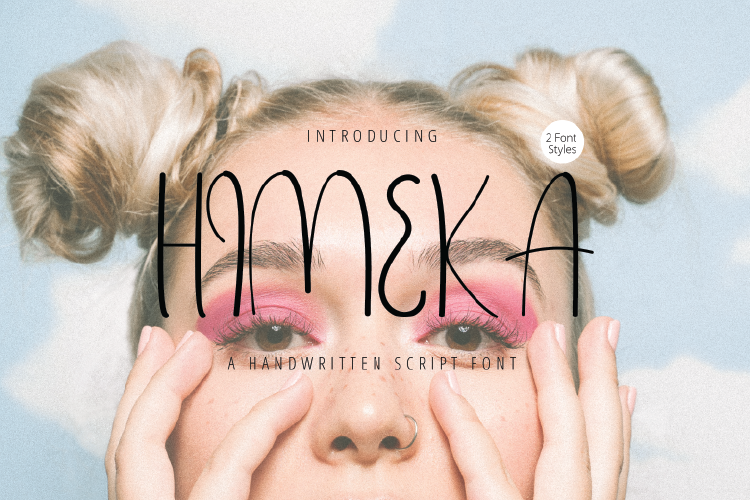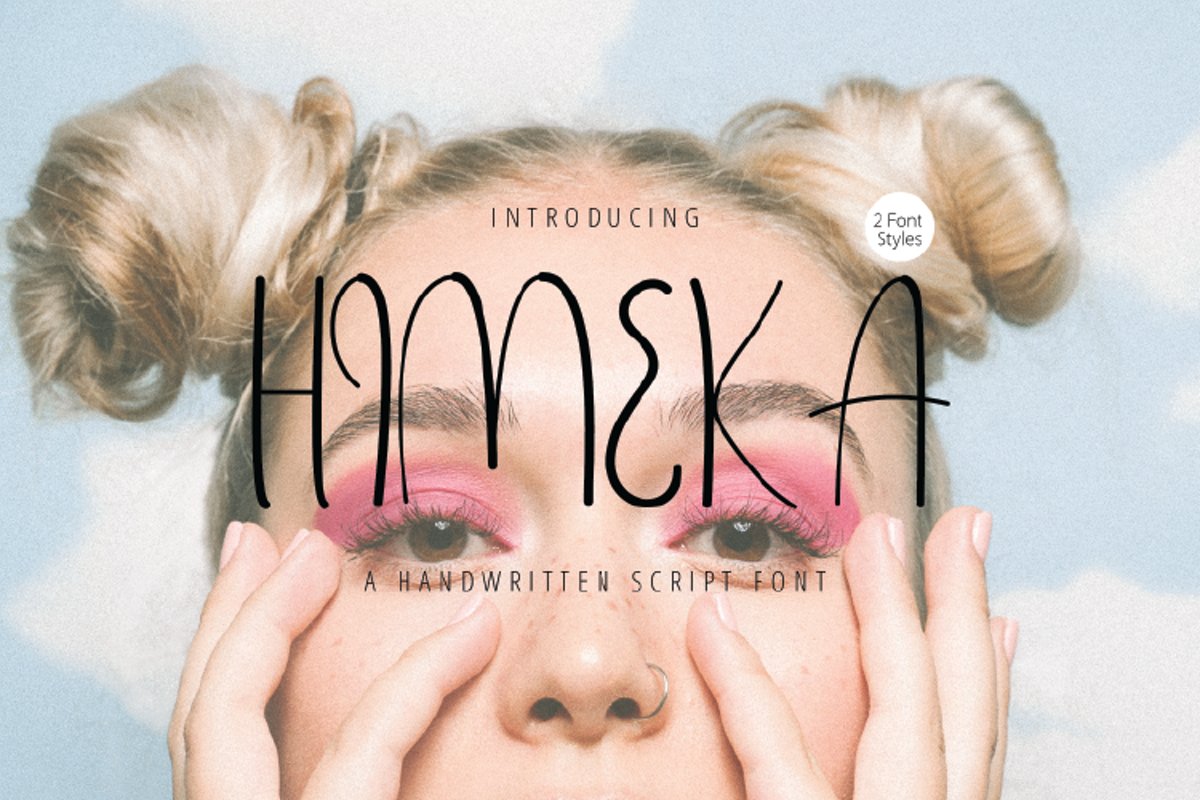
Himeka - A Handwritten Font
Himeka Alternate Regular
Himeka Regular
Himeka Alternate Italic
Himeka Italic
himeka
very suitable for logos. for beauty products for flyers, brochures, magazines, or also for branding.
Himeka - A Handwritten Font